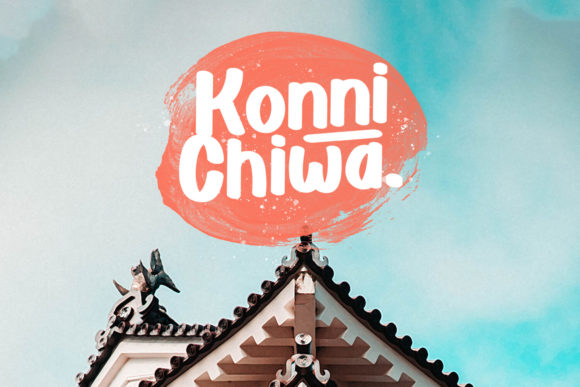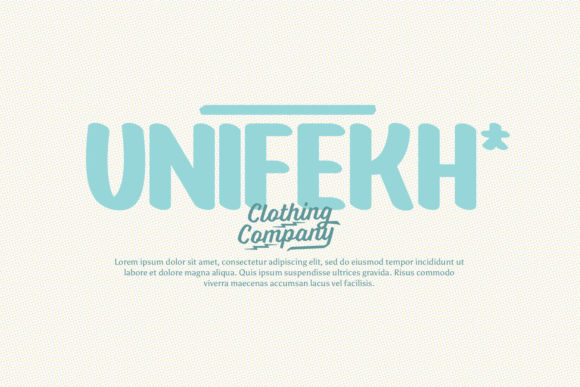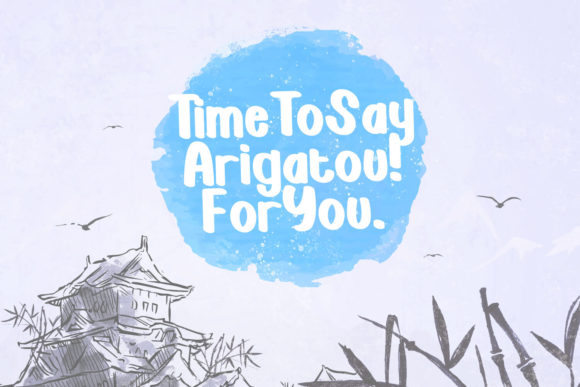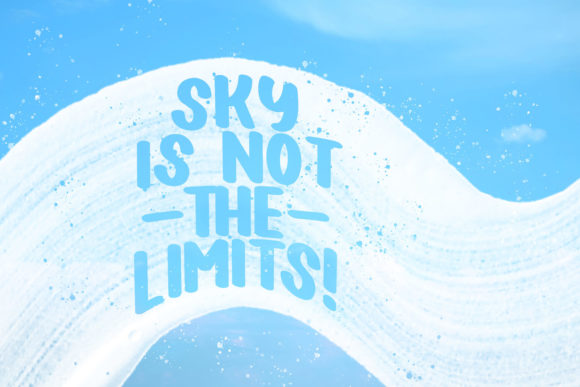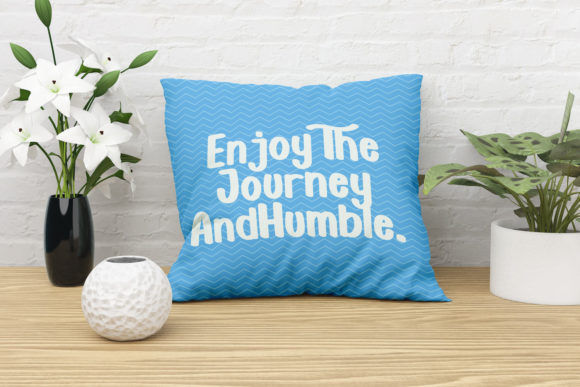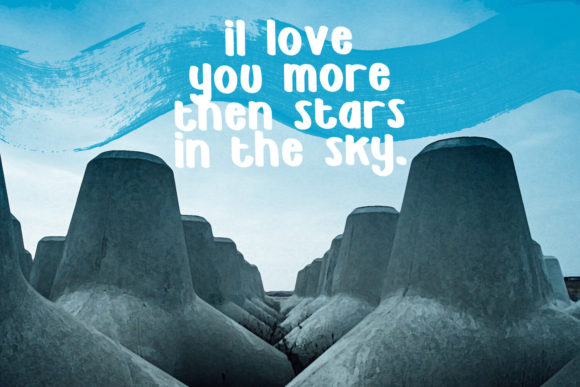
Geky Xin Font: Elevate Your Designs with a Bold and Simple Handwritten Style
Are you tired of using the same old fonts in your designs? Look no further than the Geky Xin Font, a bold and simple handwritten font that’s perfect for making your ideas stand out. With its clean lines and effortless charm, this font is ideal for designers and crafters looking to add a personal touch to their work.
What Makes Geky Xin Font Special?
Geky Xin Font is more than just a pretty face. This font is designed to be highly versatile, making it perfect for a wide range of design applications. Whether you’re working on a logo, a poster, or a social media graphic, Geky Xin Font is sure to make your design pop.
One of the standout features of Geky Xin Font is its simplicity. Unlike some fonts that can be overly ornate or complicated, Geky Xin Font is easy to read and understand. This makes it perfect for designs where you want to get your message across quickly and clearly.
But simplicity doesn’t mean a lack of personality. Geky Xin Font has a bold, confident style that’s sure to grab attention. Whether you’re looking to make a statement or simply add some visual interest to your design, this font is up to the task.
The Power of PUA Encoding
Another key feature of Geky Xin Font is its PUA (Private Use Area) encoding. This means that you can access all of the glyphs and swashes with ease, giving you even more creative freedom when it comes to your designs.
PUA encoding allows you to access a wide range of additional characters and symbols, including ligatures, alternates, and ornaments. This means that you can customize your font to suit your needs, adding unique touches and flourishes to make your design truly special.
Uses for Geky Xin Font
So what can you use Geky Xin Font for? The possibilities are endless! Here are just a few ideas to get you started:
- Logo design: Geky Xin Font is perfect for creating bold, eye-catching logos that make a statement.
- Posters and flyers: Use Geky Xin Font to create eye-catching posters and flyers that grab attention.
- Social media graphics: Add some personality to your social media graphics with Geky Xin Font.
- Branding and packaging: Use Geky Xin Font to create custom branding and packaging that stands out.
Tips for Using Geky Xin Font
Here are a few tips for getting the most out of Geky Xin Font:
- Experiment with different sizes: Geky Xin Font looks great in a variety of sizes, from small and delicate to large and bold.
- Play with color: Geky Xin Font is versatile enough to work with a wide range of colors and textures.
- Add some texture: Consider adding some texture or subtle effects to give your design some extra depth and interest.
In conclusion, Geky Xin Font is a bold and simple handwritten font that’s perfect for designers and crafters looking to add some personality to their work. With its clean lines, effortless charm, and PUA encoding, this font is sure to become a go-to in your design toolkit.